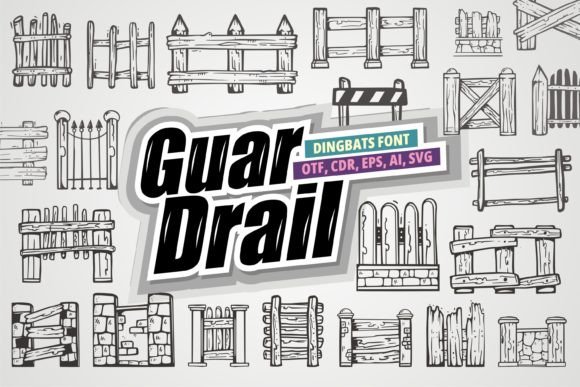
Introducing Guardrail Font: A Playful Dingbat Font to Elevate Your Designs
In the world of typography, fonts play a crucial role in conveying messages, expressing creativity, and setting the tone for a brand or design. Among the numerous font styles available, dingbat fonts have gained popularity for their unique and decorative appeal. One such font that has caught the attention of designers and creatives is the Guardrail Font. In this article, we’ll explore the Guardrail Font, its features, and how it can be used to add a touch of playfulness to your designs.
What is Guardrail Font?
Guardrail Font is a playful dingbat font that consists of hand-drawn dingbats, perfect for decorating designs, plans, and creative projects. The font is designed to add a touch of whimsy and fun to your work, making it stand out from the crowd. With its unique and quirky style, Guardrail Font is ideal for designers, artists, and creatives looking to add a personal touch to their projects.
Features of Guardrail Font
The Guardrail Font boasts several features that make it an excellent choice for designers and creatives. Some of its notable features include:
- Hand-drawn dingbats: Each dingbat in the Guardrail Font is carefully hand-drawn, giving it a unique and personal touch.
- Playful style: The font’s playful style makes it perfect for creative projects, designs, and plans that require a touch of whimsy.
- Versatile: Guardrail Font can be used for a variety of purposes, from decorating designs to creating custom plans.
Uses of Guardrail Font
The Guardrail Font can be used in a variety of ways to elevate your designs and creative projects. Some of its popular uses include:
- Decorating designs: Add a touch of playfulness to your designs, such as brochures, posters, and flyers, with the Guardrail Font’s unique dingbats.
- Creating custom plans: Use the Guardrail Font to create custom plans, such as party decorations, wedding decor, and event planning.
- Illustrations and cartoons: The font’s playful style makes it perfect for illustrations, cartoons, and comics.
- Social media graphics: Add a touch of whimsy to your social media graphics, such as Instagram posts, Facebook graphics, and Twitter headers.
Benefits of Using Guardrail Font
Using the Guardrail Font in your designs and creative projects offers several benefits, including:
- Unique and creative: The font’s unique and playful style sets it apart from other fonts, making your designs stand out.
- Time-saving: The Guardrail Font’s pre-designed dingbats save you time and effort, allowing you to focus on other aspects of your project.
- Easy to customize: The font is easy to customize, allowing you to adjust the size, color, and style to fit your design needs.
Tips and Tricks for Using Guardrail Font
Here are some tips and tricks to help you get the most out of the Guardrail Font:
- Experiment with different colors: Try out different colors and color combinations to add depth and interest to your designs.
- Mix and match dingbats: Combine different dingbats to create unique and creative compositions.
- Use the font for textures and patterns: Use the Guardrail Font to create textures and patterns, adding an extra layer of interest to your designs.
- Keep it simple: Don’t overdo it – sometimes, less is more. Use the font sparingly to add a touch of whimsy to your designs.
In conclusion, the Guardrail Font is a playful dingbat font that can add a touch of whimsy and fun to your designs and creative projects. With its unique and hand-drawn dingbats, the font is perfect for designers, artists, and creatives looking to elevate their work. Whether you’re creating custom plans, decorating designs, or illustrating cartoons, the Guardrail Font is a versatile and cost-effective solution that’s easy to use and customize.
Final Thoughts